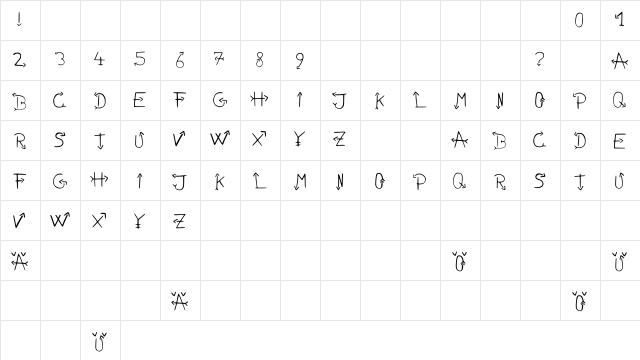
NoNameFont Medium
Design Context for NoNameFont Typeface
NoNameFont is a composed and adaptable typeface that performs quietly and consistently across a wide range of design contexts.